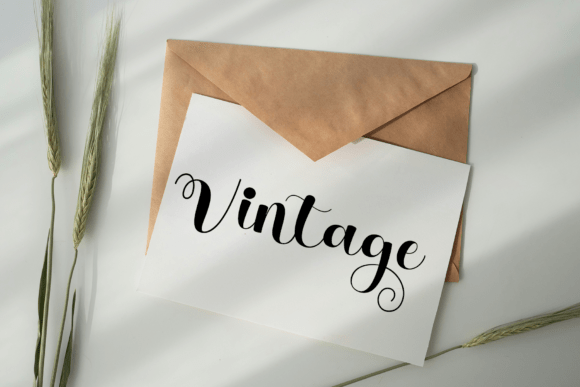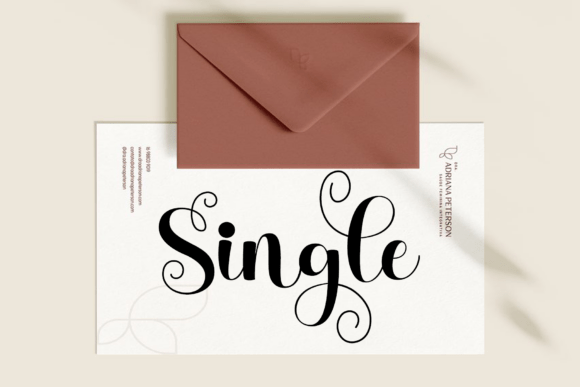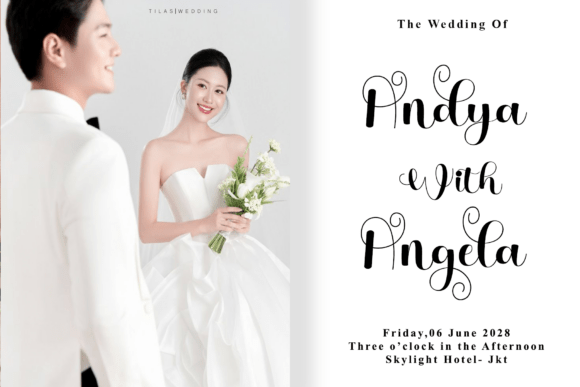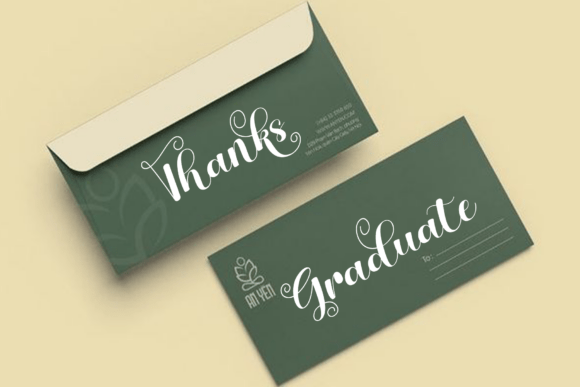
Discover the Charm of Angela Font: Elevate Your Designs with a Timeless Handwritten Style
Are you on the hunt for a font that adds a personal touch to your designs? Look no further than Angela Font, a lovely and timeless handwritten font that is sure to capture the hearts of designers and crafters alike. With its unique and beautiful touch, Angela Font is the perfect choice for creating eye-catching logos, branding, and quotes that stand out from the crowd.
Handwritten fonts have a way of adding a personal and human touch to any design. They evoke feelings of warmth, friendliness, and approachability, making them perfect for designs that require a more personal and emotive connection. Angela Font is no exception, with its delicate and elegant strokes that bring a sense of sophistication and refinement to any design.
What Makes Angela Font Special?
So, what sets Angela Font apart from other handwritten fonts? For starters, every letter has a unique and beautiful touch that gives the font a sense of character and personality. The font is carefully crafted to ensure that each letter flows seamlessly into the next, creating a beautiful and cohesive look that is sure to impress. Whether you’re designing a logo, creating a brand identity, or crafting a quote, Angela Font is the perfect choice.
Uses for Angela Font
Angela Font is a versatile font that can be used in a variety of design applications. Here are just a few ideas to get you started:
- Logo Design: Create a memorable and eye-catching logo that stands out from the crowd with Angela Font.
- Branding: Use Angela Font to create a consistent brand identity that reflects your values and personality.
- Quotes: Add a touch of elegance and sophistication to your quotes with Angela Font.
- Stationery: Use Angela Font to create beautiful and unique stationery that makes a lasting impression.
Why Designers and Crafters Love Angela Font
Designers and crafters love Angela Font for its unique and beautiful touch. The font is easy to read and understand, making it perfect for designs that require a clear and concise message. Additionally, the font is highly versatile, allowing designers to use it in a variety of design applications. Whether you’re a professional designer or a crafter, Angela Font is a great addition to your font collection.
Tips for Using Angela Font
Here are a few tips for using Angela Font in your designs:
- Pair with other fonts: Angela Font pairs well with other fonts, so don’t be afraid to experiment with different combinations.
- Use in large and small sizes: Angela Font looks great in both large and small sizes, making it perfect for a variety of design applications.
- Experiment with colors: Angela Font looks great in a variety of colors, so don’t be afraid to experiment with different hues and shades.
In conclusion, Angela Font is a lovely and timeless handwritten font that is perfect for designers and crafters looking to add a personal touch to their designs. With its unique and beautiful touch, Angela Font is sure to elevate your designs and make them stand out from the crowd. Whether you’re creating a logo, branding, or quotes, Angela Font is the perfect choice.